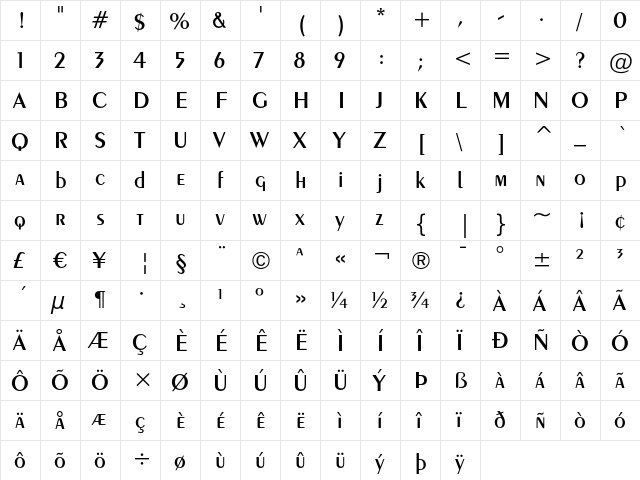
Exotic 350 Demi-Bold
Design Context for Exotic 350 Typeface
Exotic 350 offers clean, dependable letterforms without strong stylistic allegiance, making it a practical choice for designers who need flexibility. Its bold stroke weight gives it real presence on the page.
Pro Tip: Use Exotic 350 in both headline and body roles to test its range before committing to a single application.